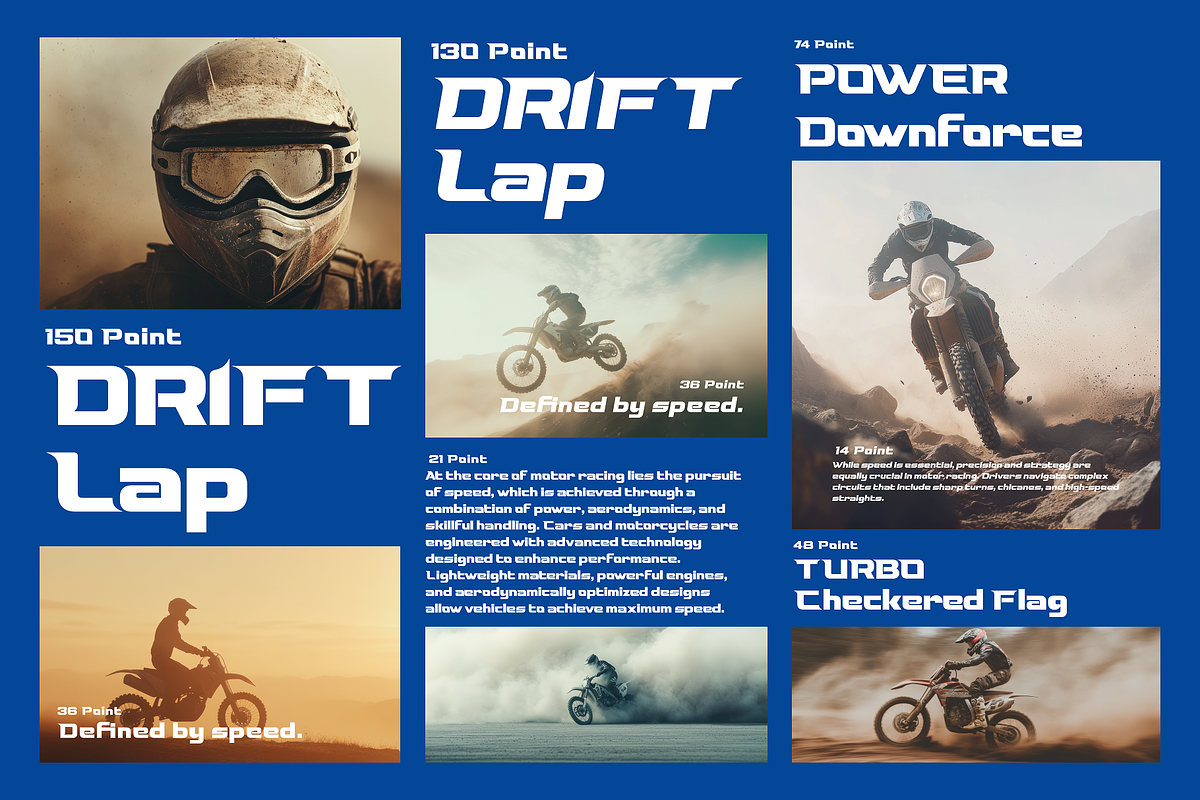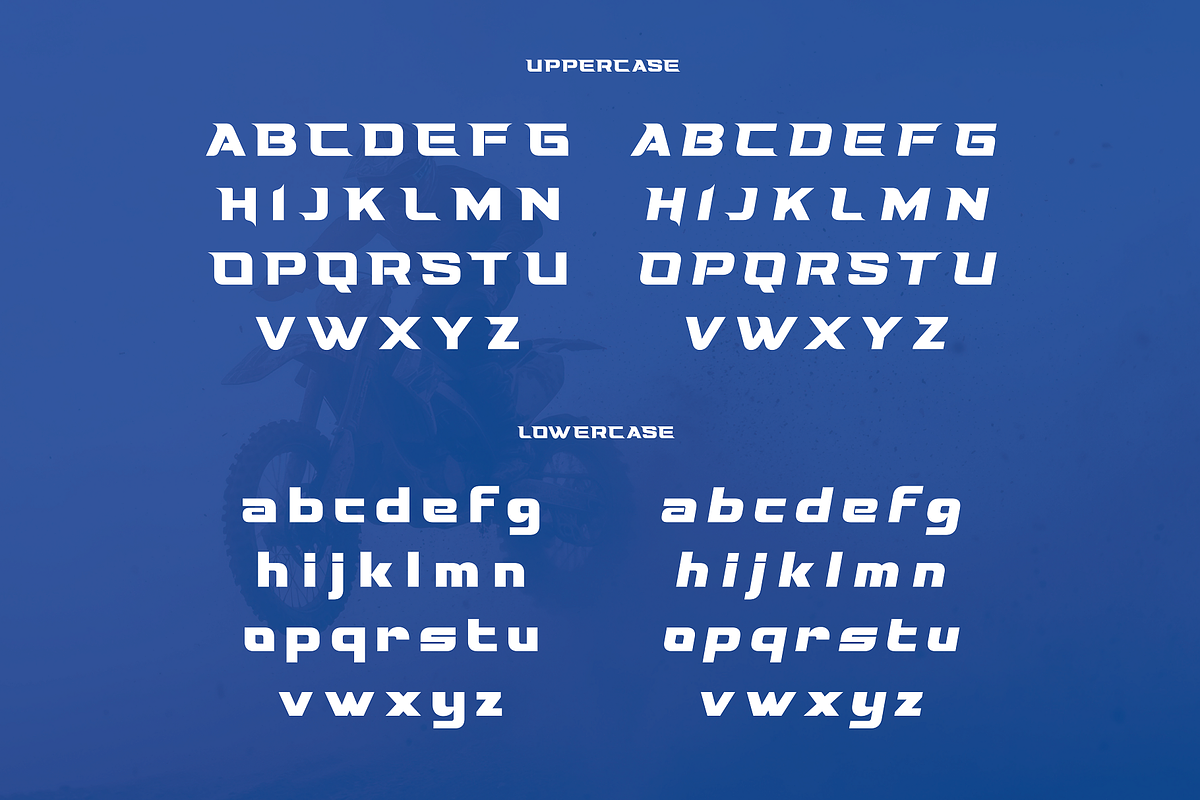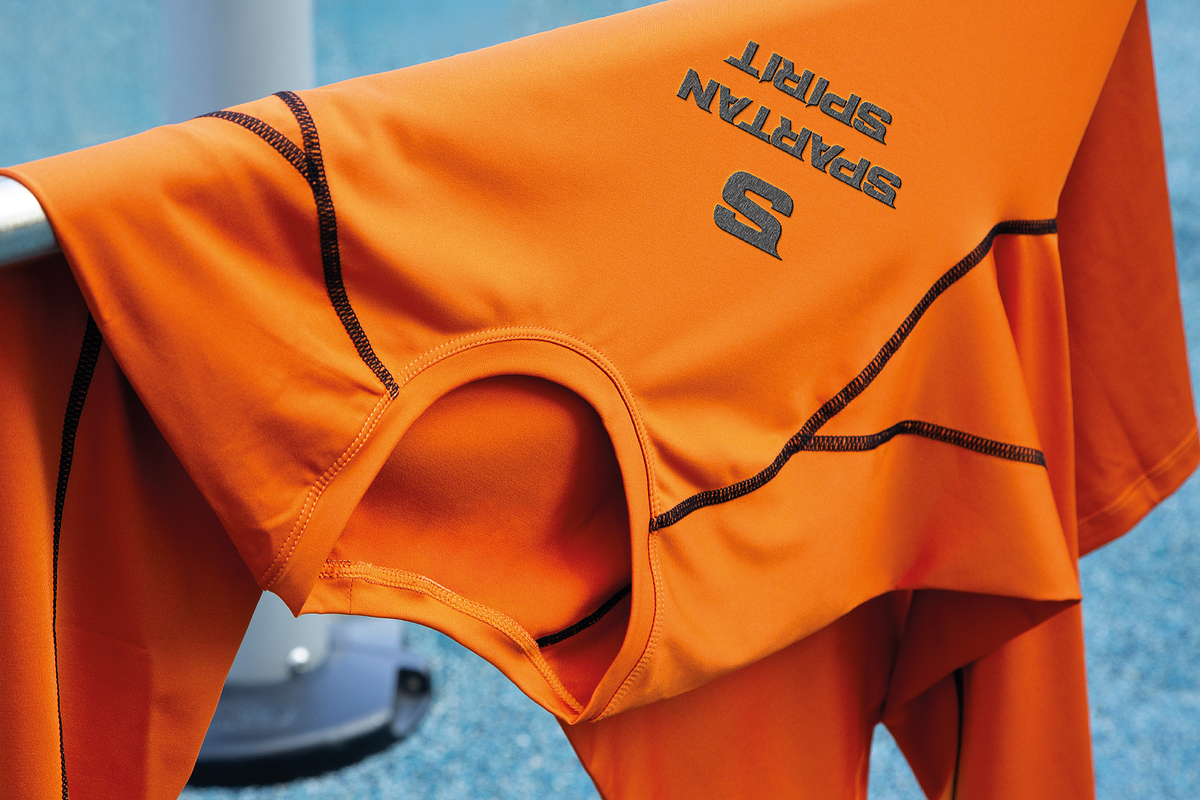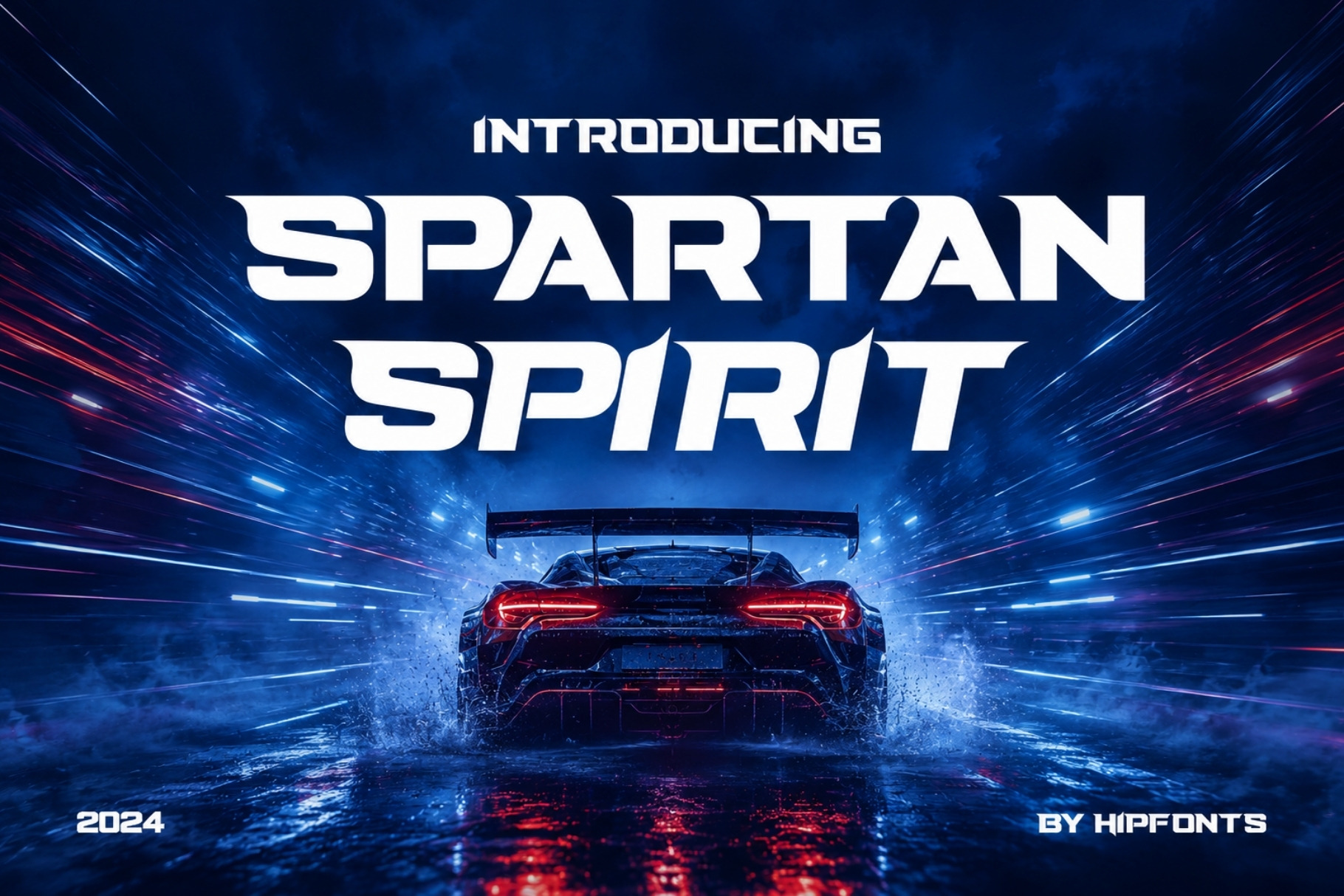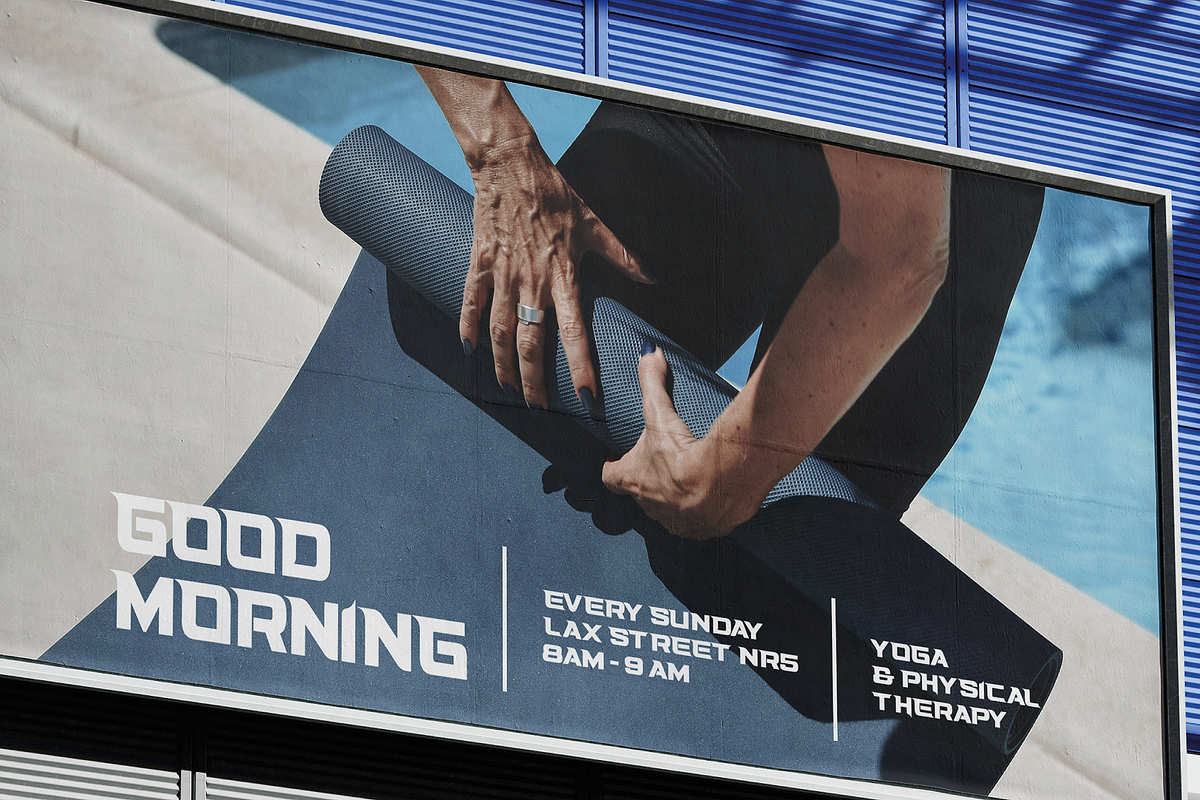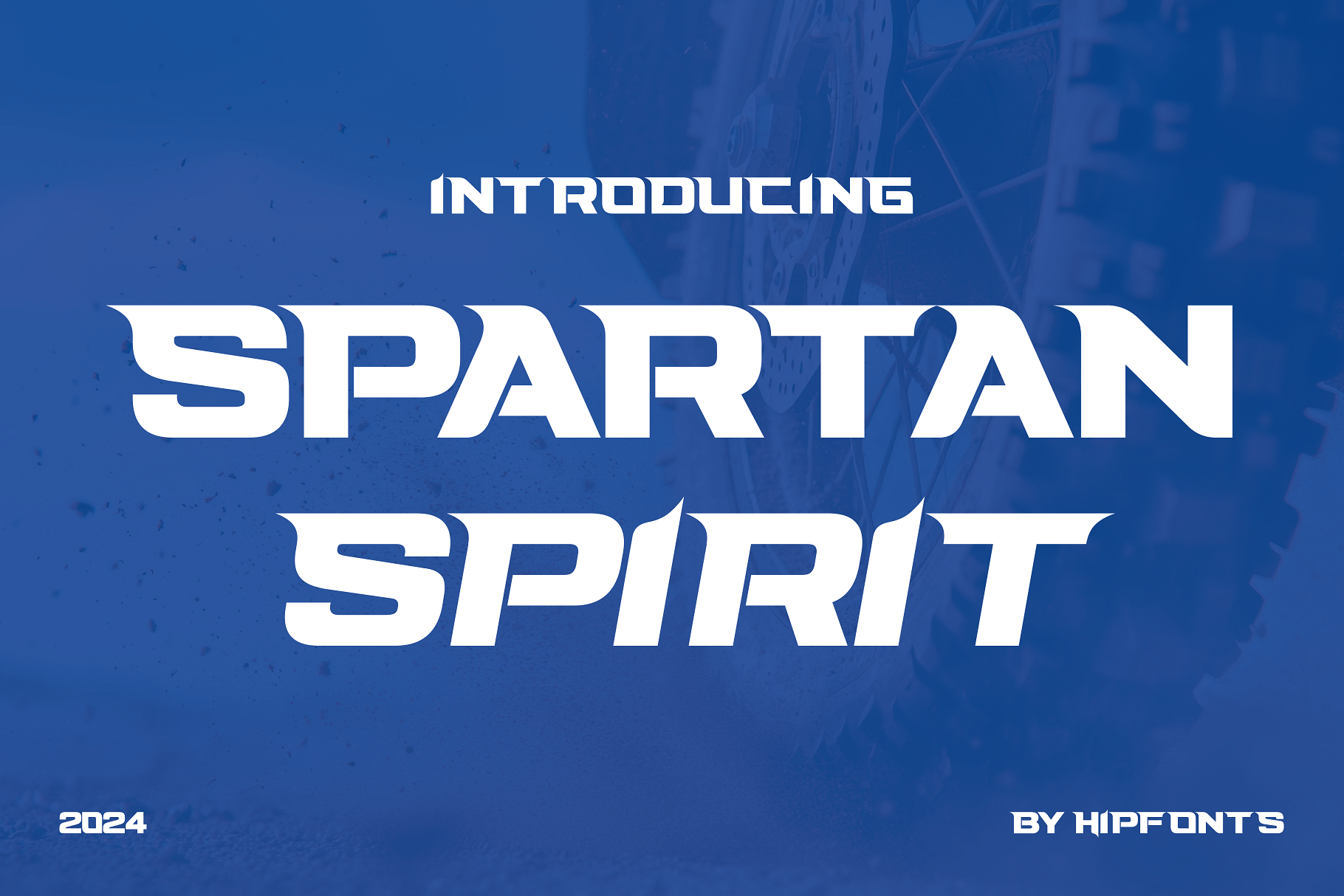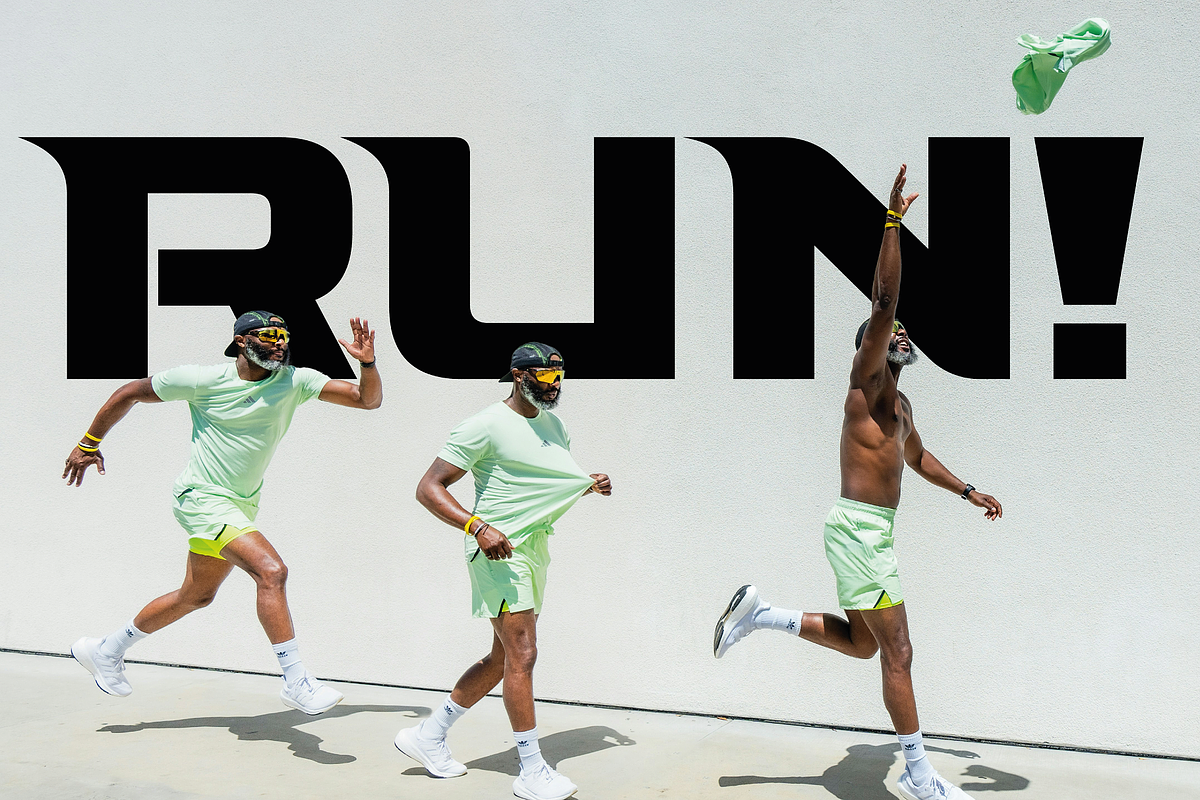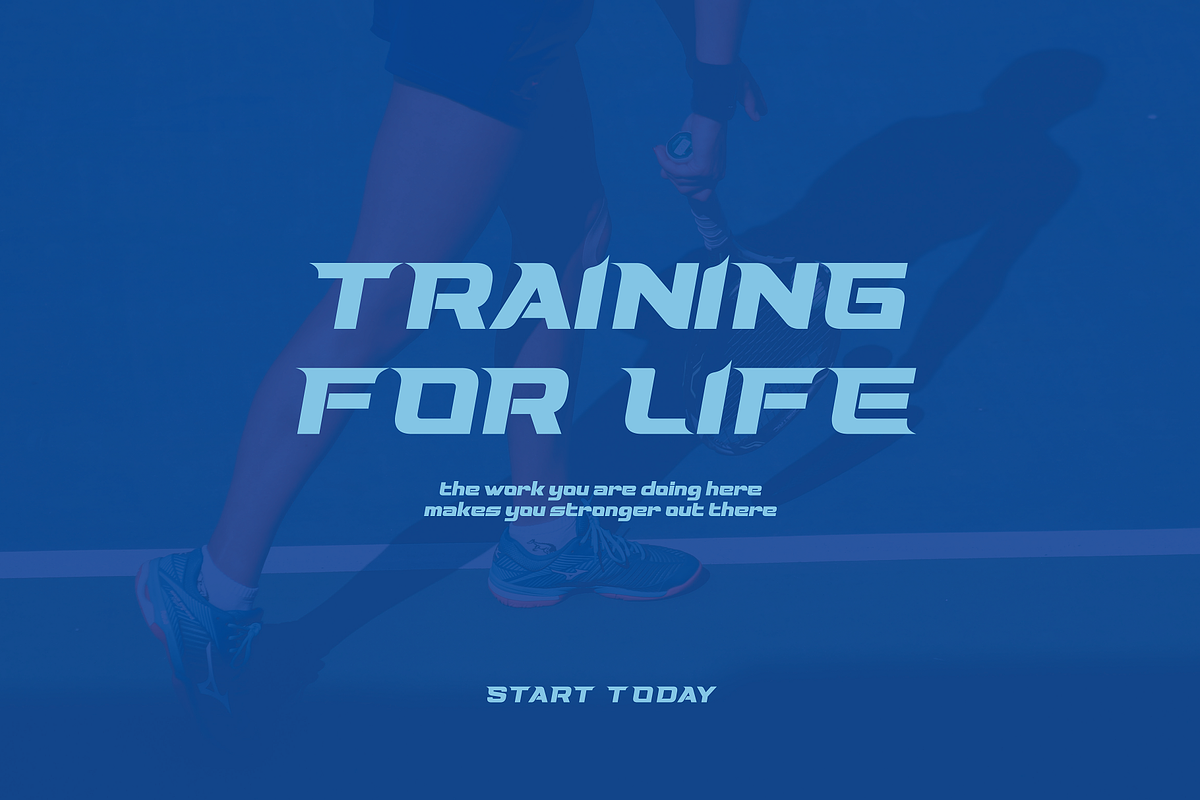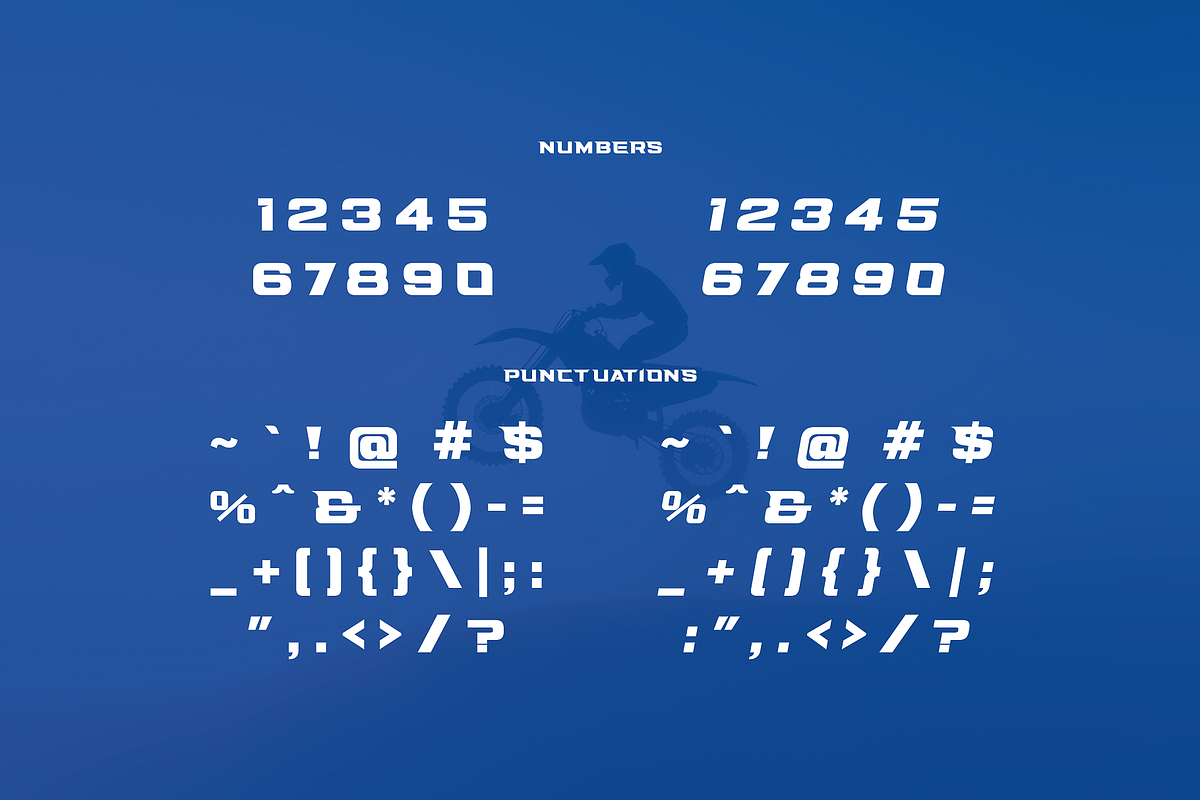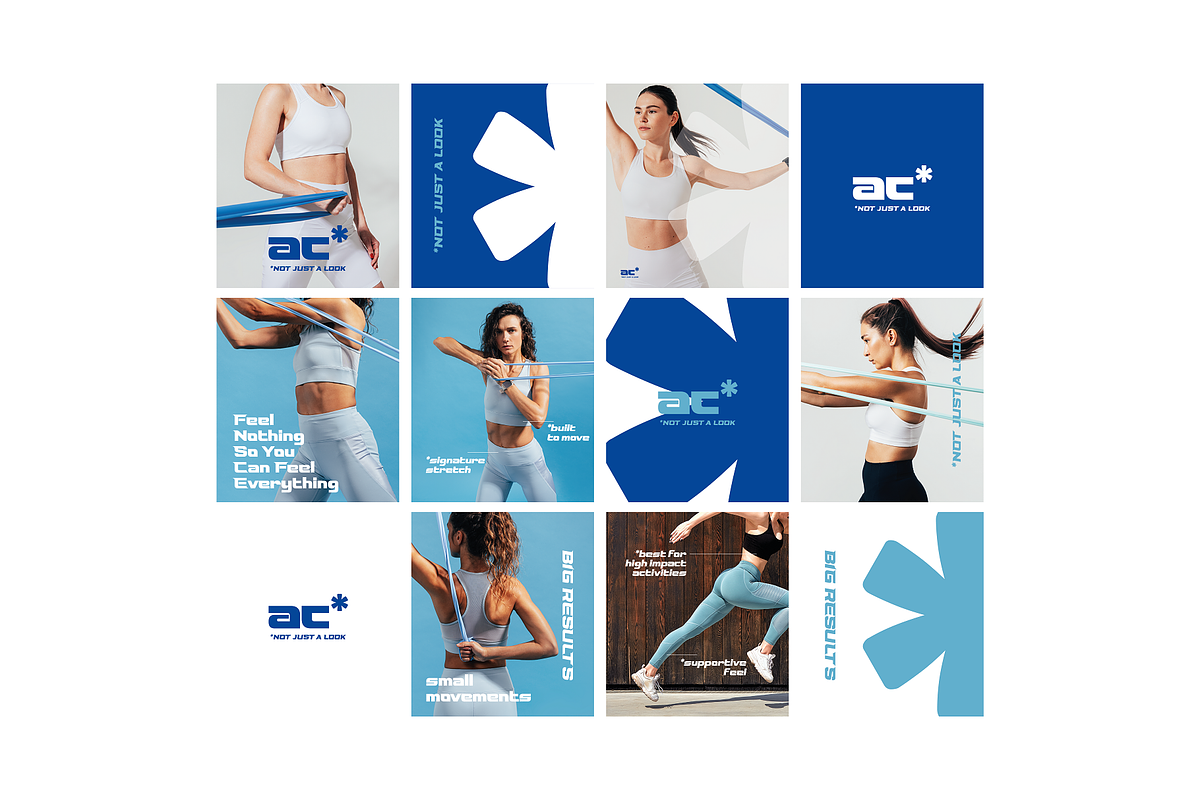
Spartan Spirit - Athletic Typeface
Unleash the power of speed and strength with Spartan Spirit – the racing-inspired sports typeface built for bold, high-energy designs. Created with graphic designers in mind, Spartan Spirit combines sleek lines and dynamic angles, capturing the relentless spirit of competition. Perfect for sports branding, automotive graphics, team logos, and event posters, this typeface adds a sense of motion and intensity to any project.
Available in Regular and Oblique styles, Spartan Spirit is as versatile as it is bold. Use it to fuel adrenaline-packed designs, add grit to athletic branding, or bring a modern edge to digital and print layouts. Whether you’re designing for a racing event, creating bold headlines, or adding high-speed flair to merchandise, Spartan Spirit delivers a look that’s as sharp as it is fast. Turbocharge your designs and set them apart with the power of Spartan Spirit!